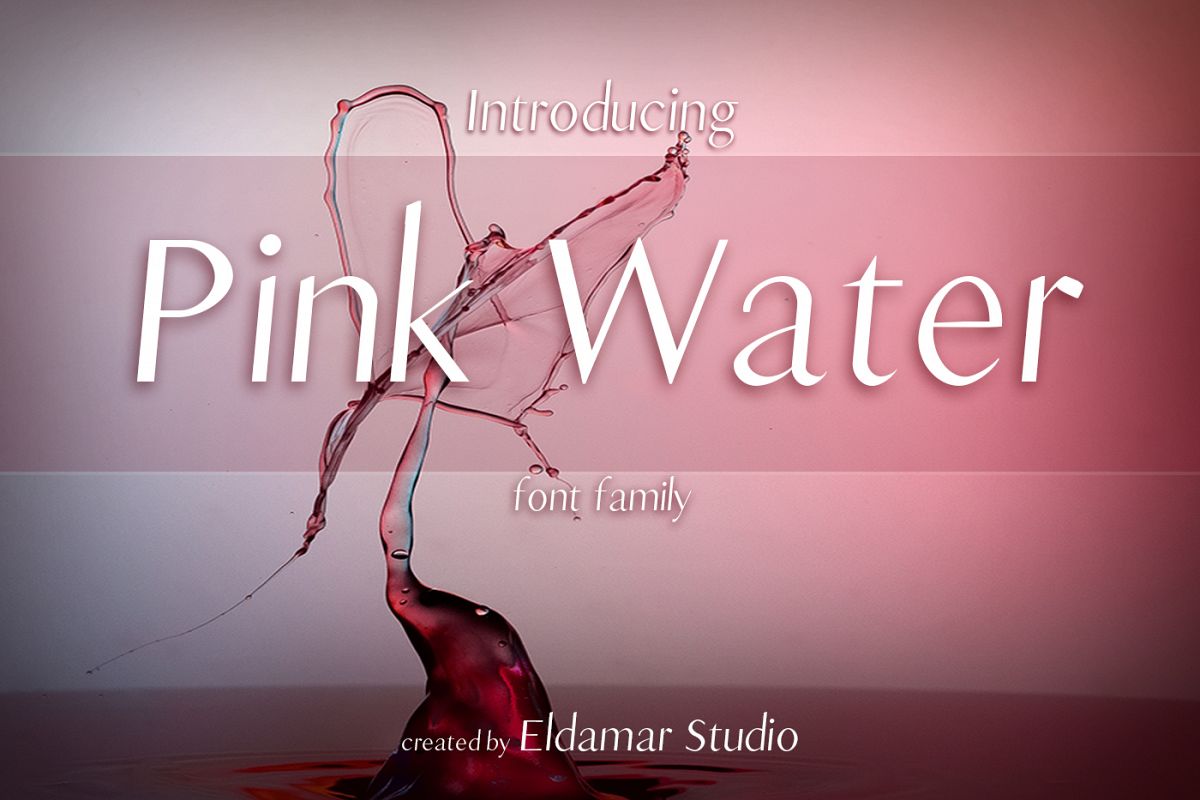
Pink Water Font
Pink-Water regular
Pink Water Font it's a wonderful font with a unique, detailed and handmade look.
These
fonts looks amazing in all caps with a wide-set spacing if you want to
try a classy look, or beautiful on its own in capital and lowercase
letters for something completely timeless.
Perfect for gorgeous logos, displays, headers, invitations, save the dates, weddings, titles, web layouts and branding, etc.